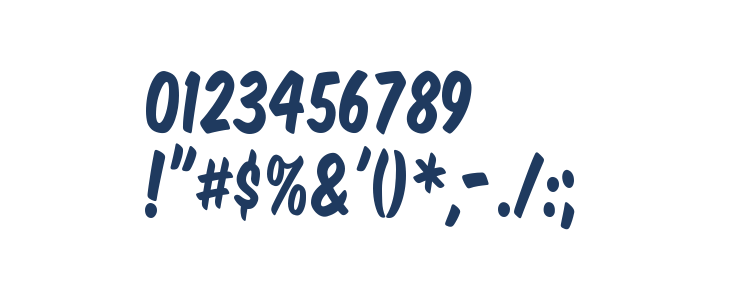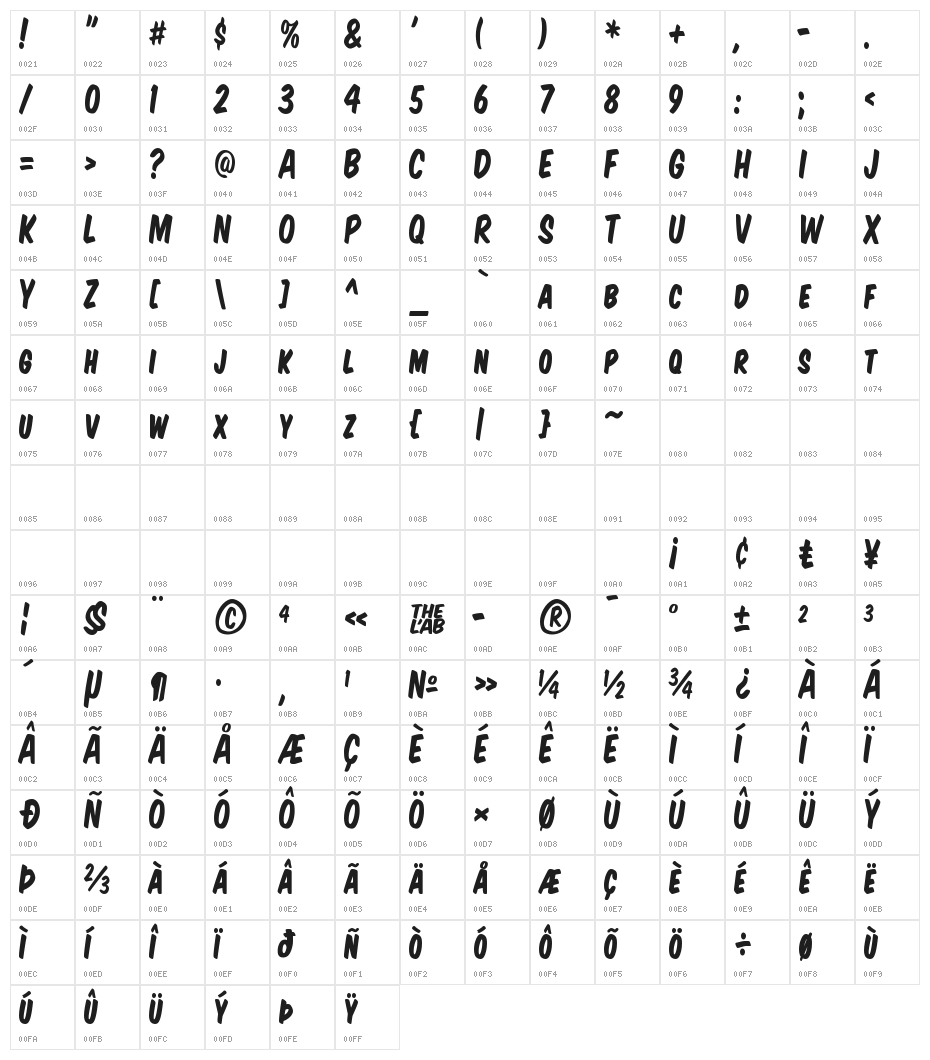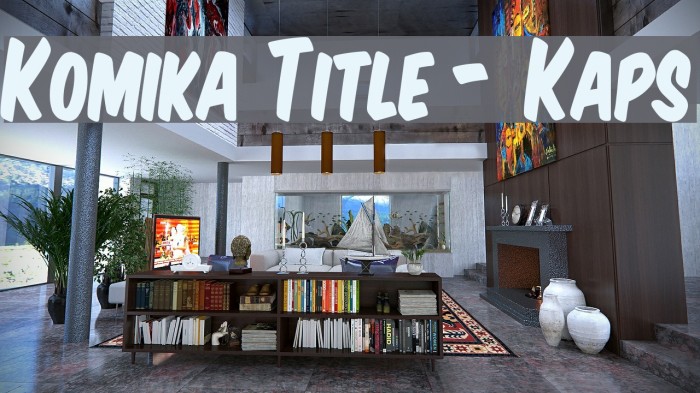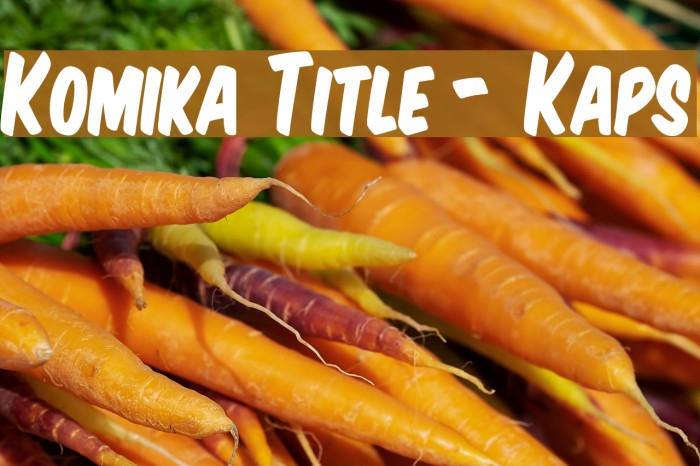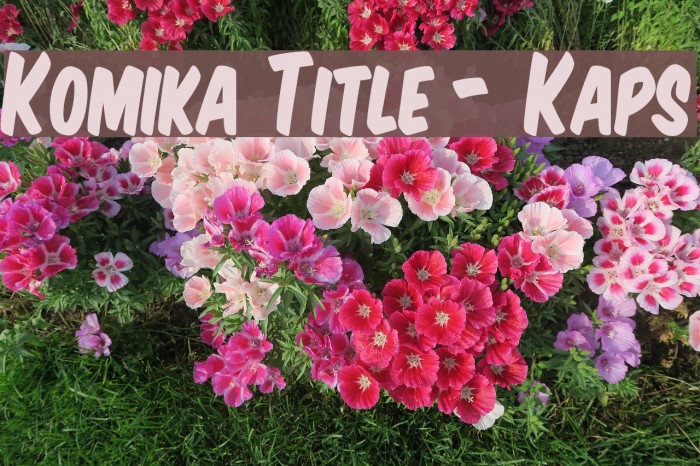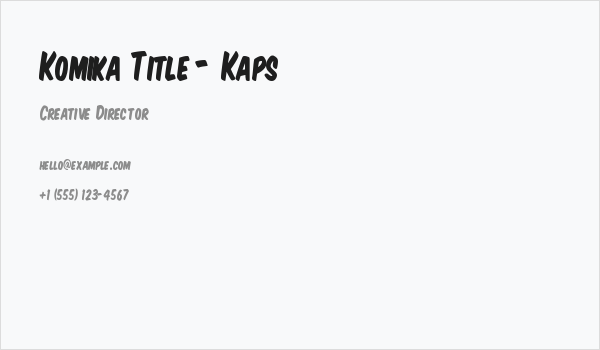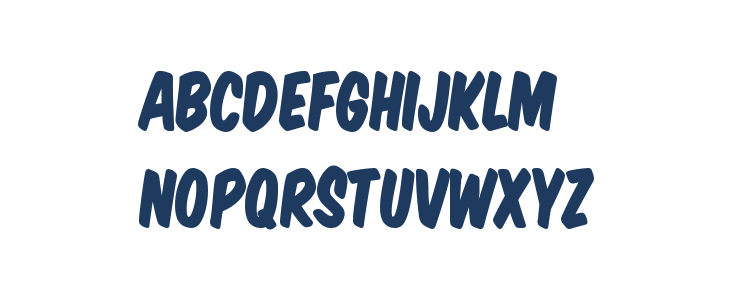
Komika Title - Kaps Font
Komika Title - Kaps Description
This font features bold, playful characters with a comic-inspired style. The letters are slightly slanted, giving a dynamic and energetic feel. The strokes are thick and rounded, contributing to a friendly and approachable appearance. The uppercase and lowercase letters maintain a consistent style, with a slight variation in size and shape to add interest. Numbers and special characters are designed to match the overall aesthetic, ensuring uniformity across all text elements. The font's boldness and unique style make it suitable for attention-grabbing headlines and creative projects.
| Overall Style | Playful, Comic |
| Proposed Projects | Ideal for comic books, children's books, playful branding, and eye-catching posters. |